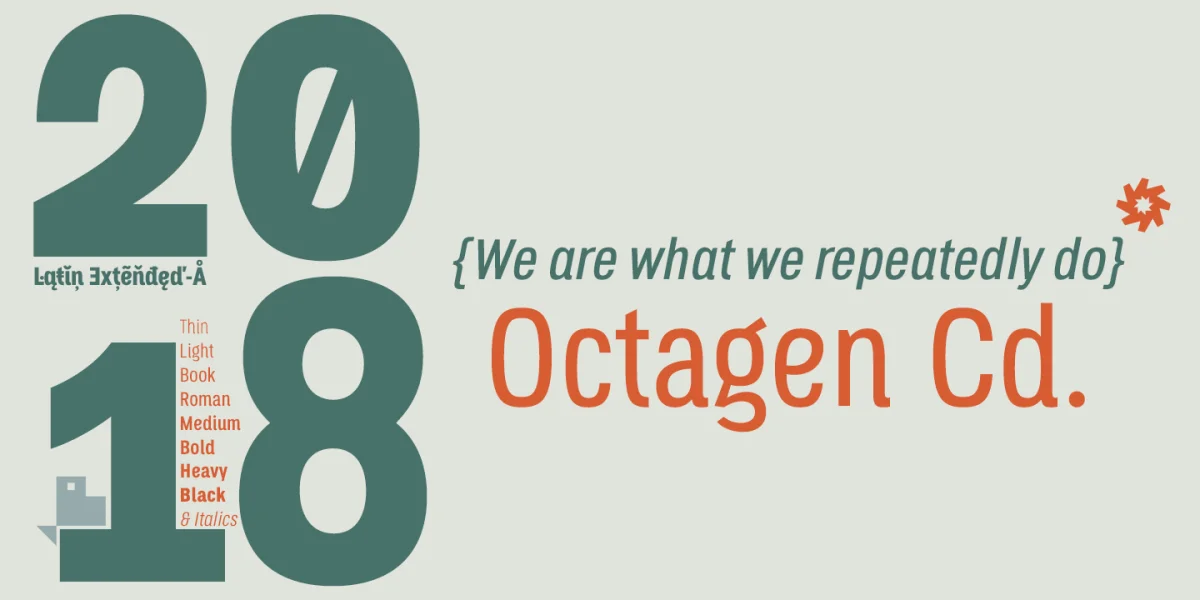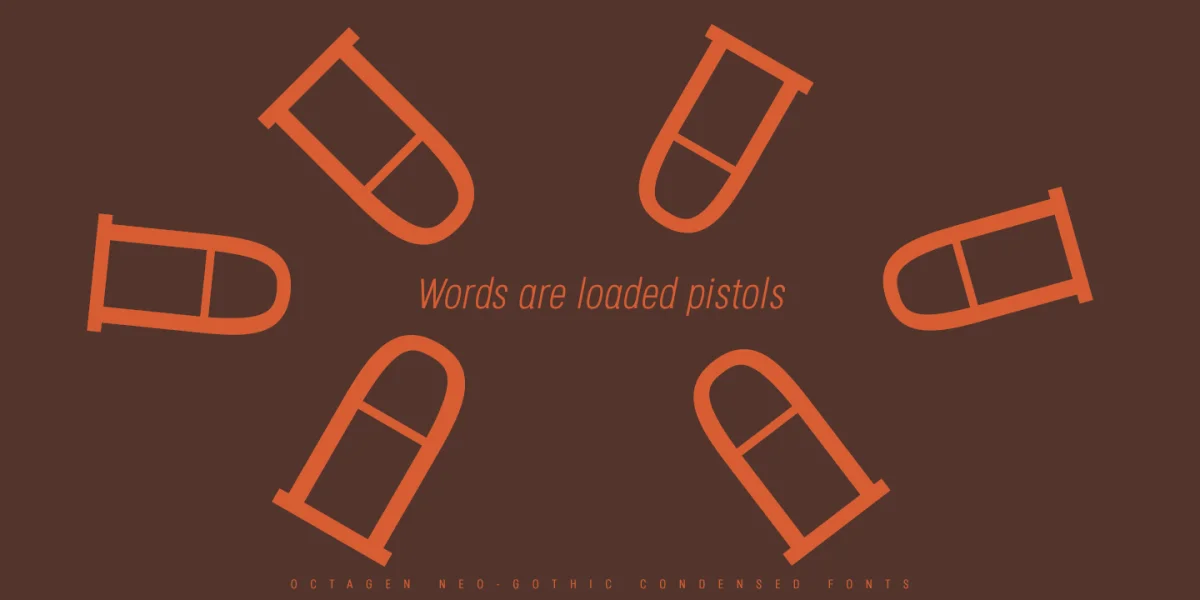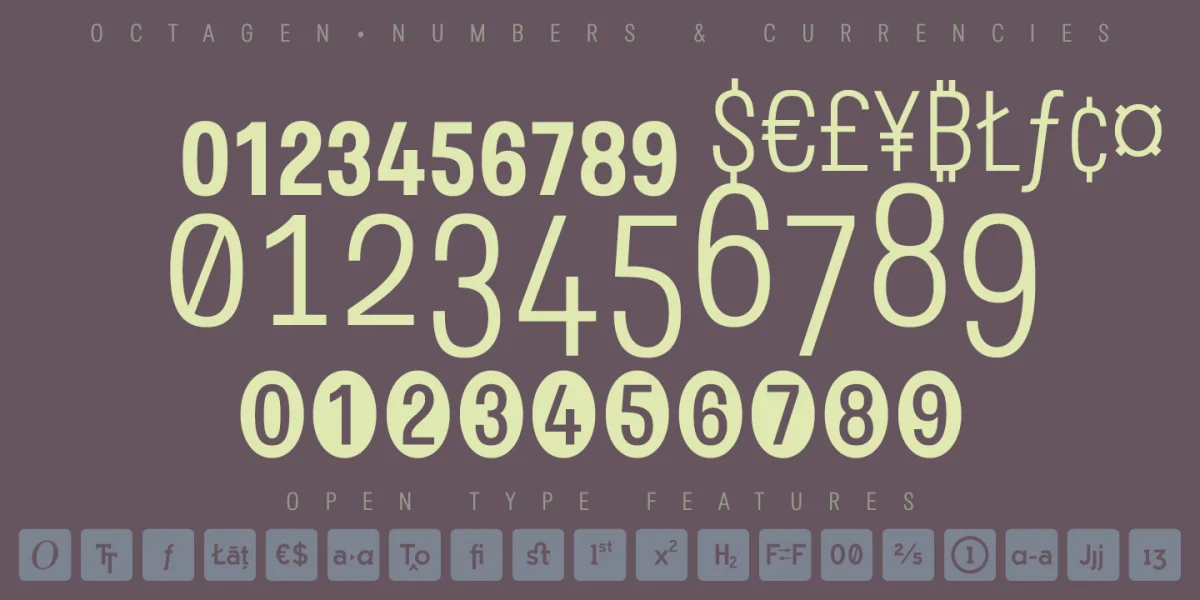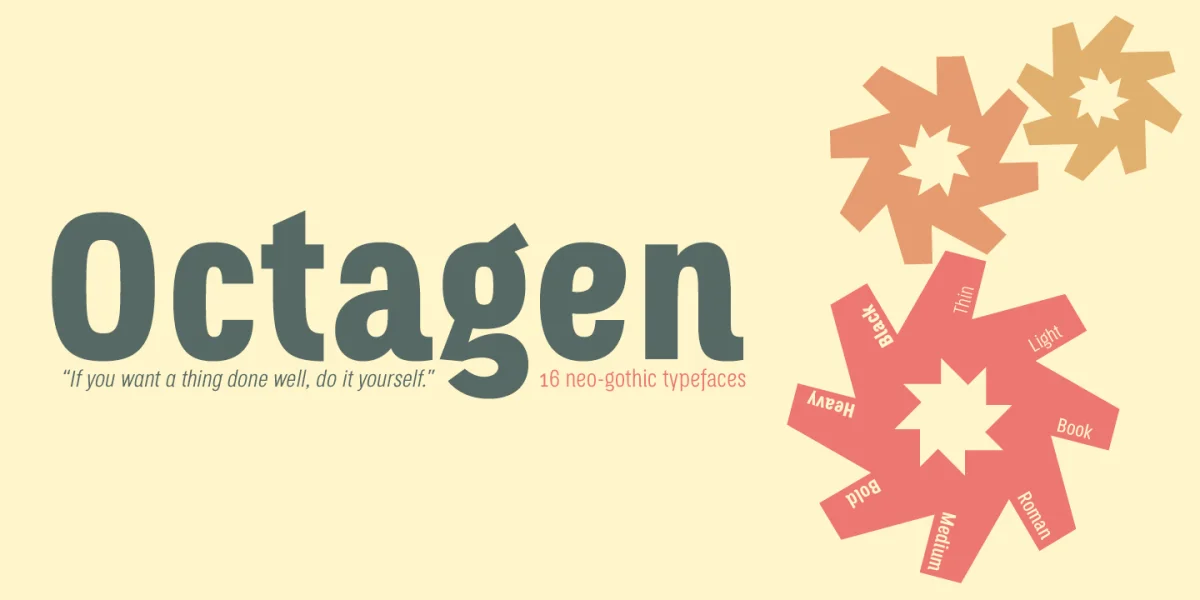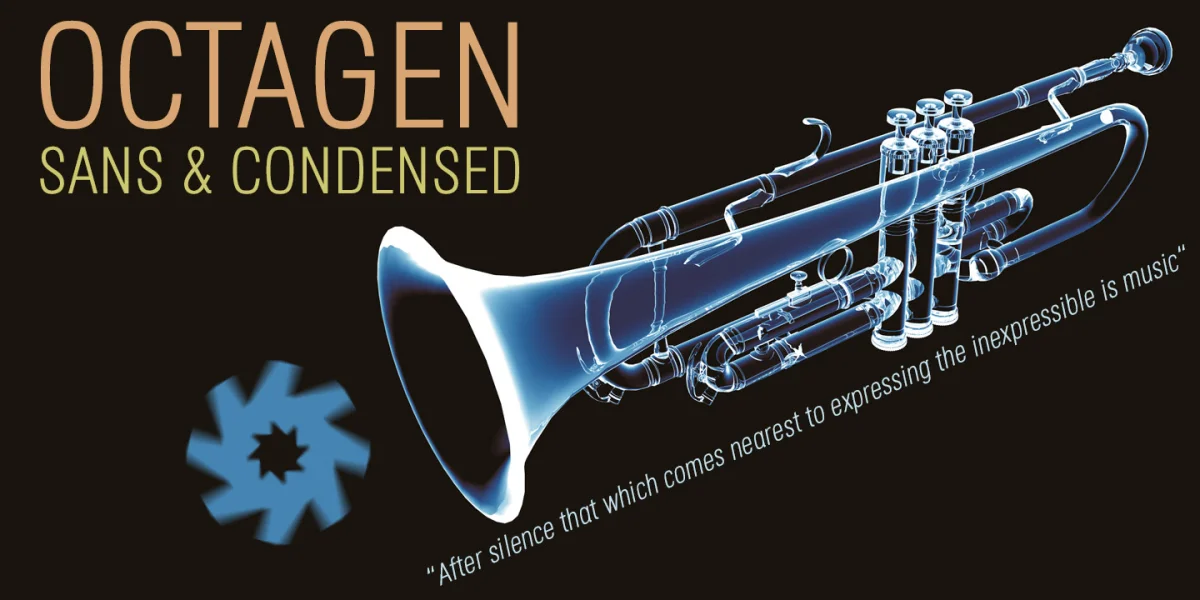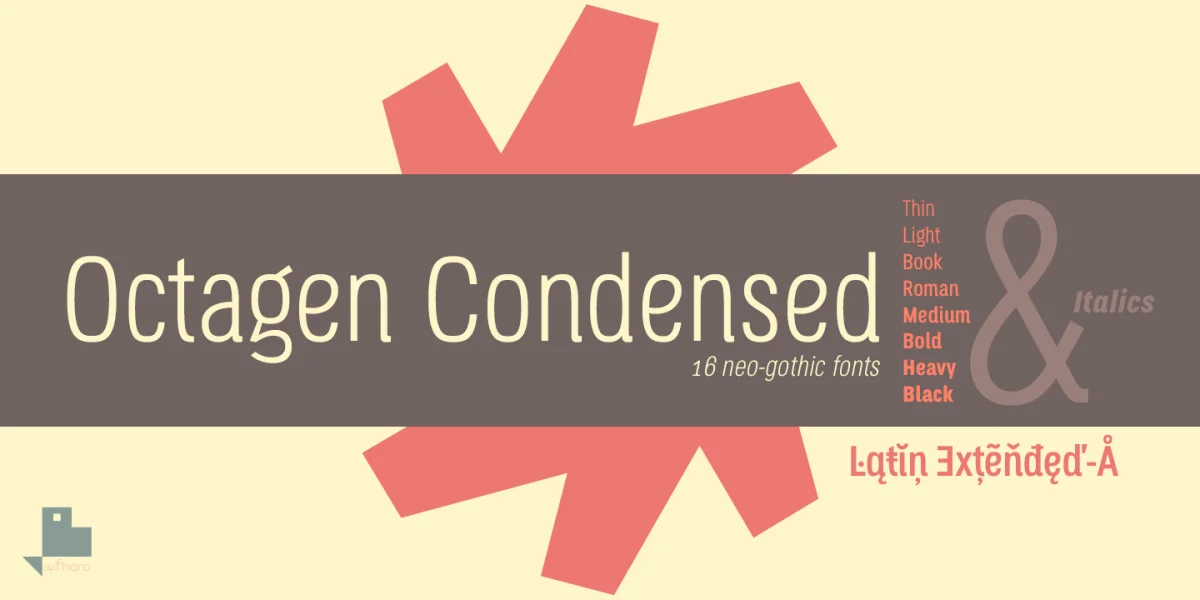
Octagen is a family of 16 condensed Sans Serif fonts of geometric construction and neo-Gothic style with short descenders and a humanistic finish in the curves and auctions of the tiny letters to avoid the coldness of the grotesque typographies, providing expressiveness, energy, warmth and docility , resulting in a friendly typography with a lot of personality and readability, specially drawn for the composition of short and medium texts, signage or headlines where horizontal space saving is needed.